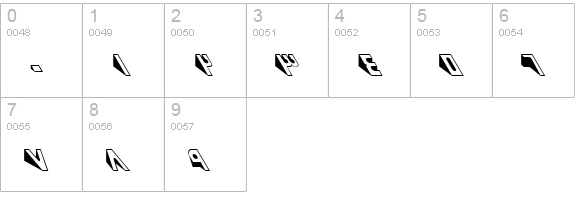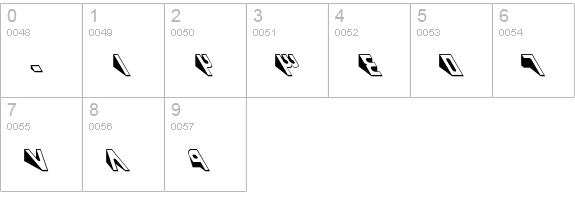
B Kaj Font Details
B Kaj font is a charming and versatile typeface that exudes creativity and elegance. Its sleek lines and unique letterforms make it perfect for a wide range of design projects, from branding to social media graphics. The font's modern yet sophisticated style is sure to make your text stand out and make a lasting impression. The best part? B Kaj font is completely free to download at FontsMarket.com. Simply visit the website to access this stunning font and enhance your designs with its beauty and sophistication. Whether you're a designer looking for a fresh new typeface or a content creator in need of a stylish font for your projects, B Kaj is the perfect choice. Download it today and elevate your designs with this exquisite font.